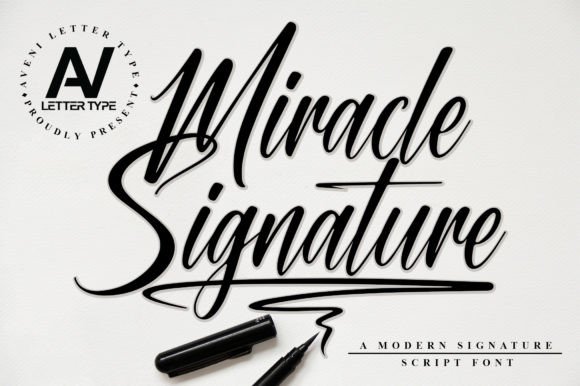
Miracle Signature Font
Miracle Signature is a modern signature script font that is stylish and has a very neat kerning. Expertly designed to make your creations look amazing. This font will look great on a variety of ideas! Use it to get creative in apparel branding, business card, cosmetic branding, tote bag branding, wedding invitation, product packaging, headers, posters, merchandise, social media & greeting cards, and so much more.